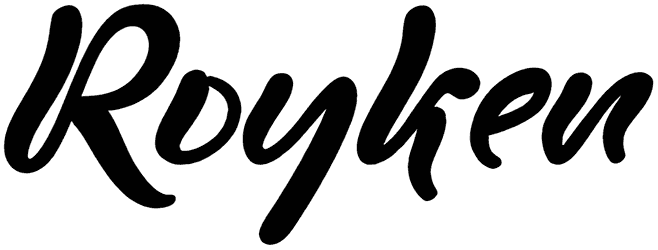
Royken Font
Designed byNuryanto Dwi
If you are in the middle of designing an invitation, gift card, greeting card, or poster that needs a personalized romantic touch, we offer you to make charming outcomes by utilizing a script font such as Royken.
Its characters are a little bit tilted and stretched, thus bewildering the customers while their eyes go up and down following its smooth flow. You can share a sense of momentum, delicacy, and vivacity with your audience.